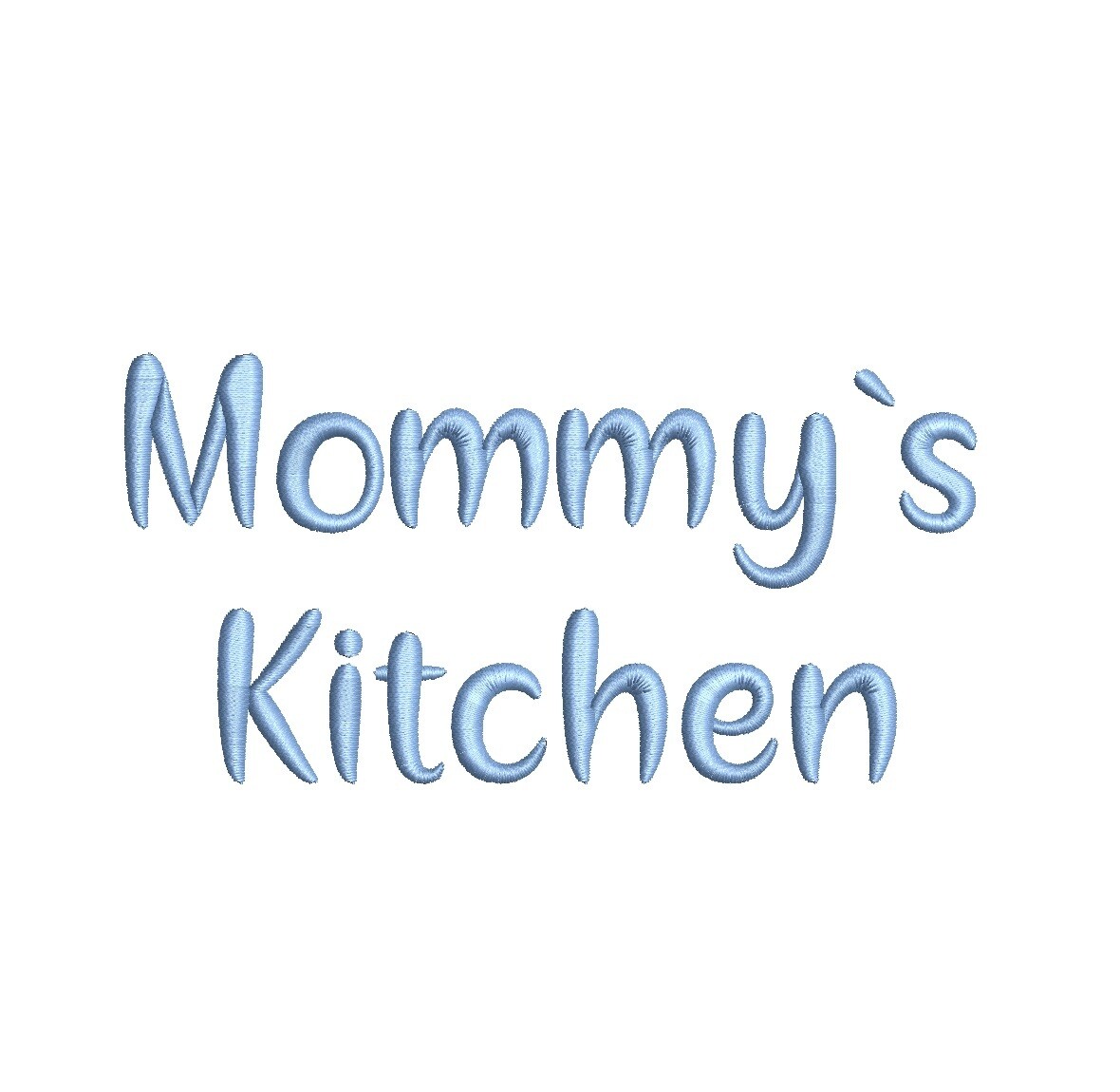
Introducing Mommy's Kitchen Regular ESA Font, the perfect recipe for your embroidery designs! Crafted to seamlessly harmonize with Wilcom Studio e4.5.6 and Hatch 3 versions and beyond, this font is your secret ingredient for creativity. Elevate your embroidery projects with Mommy's Kitchen, a font that exudes warmth and versatility. Ideal for logos, monograms, and text elements, it caters to both seasoned professionals and passionate hobbyists. Unlock a world of culinary-inspired creativity with Mommy's Kitchen Regular ESA Font. Don't miss the chance to add a dash of style to your designs - acquire it today and infuse your embroidery with a taste of excellence!